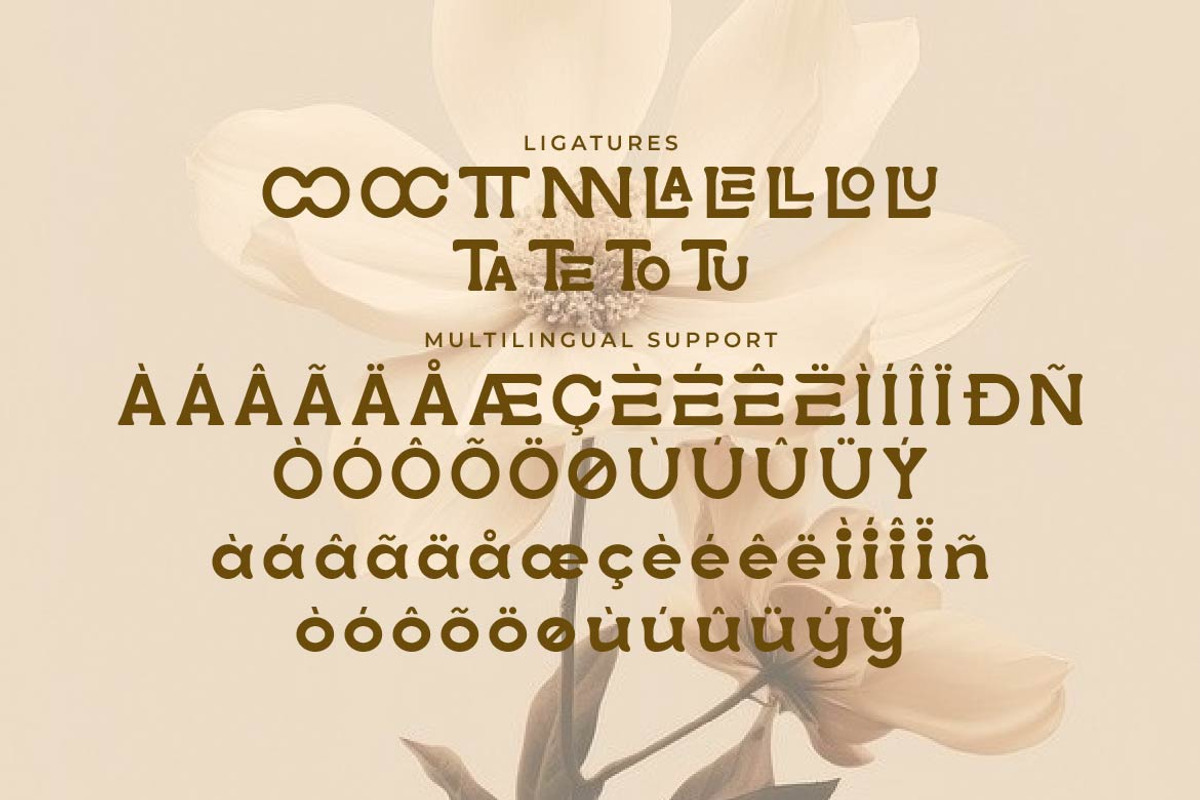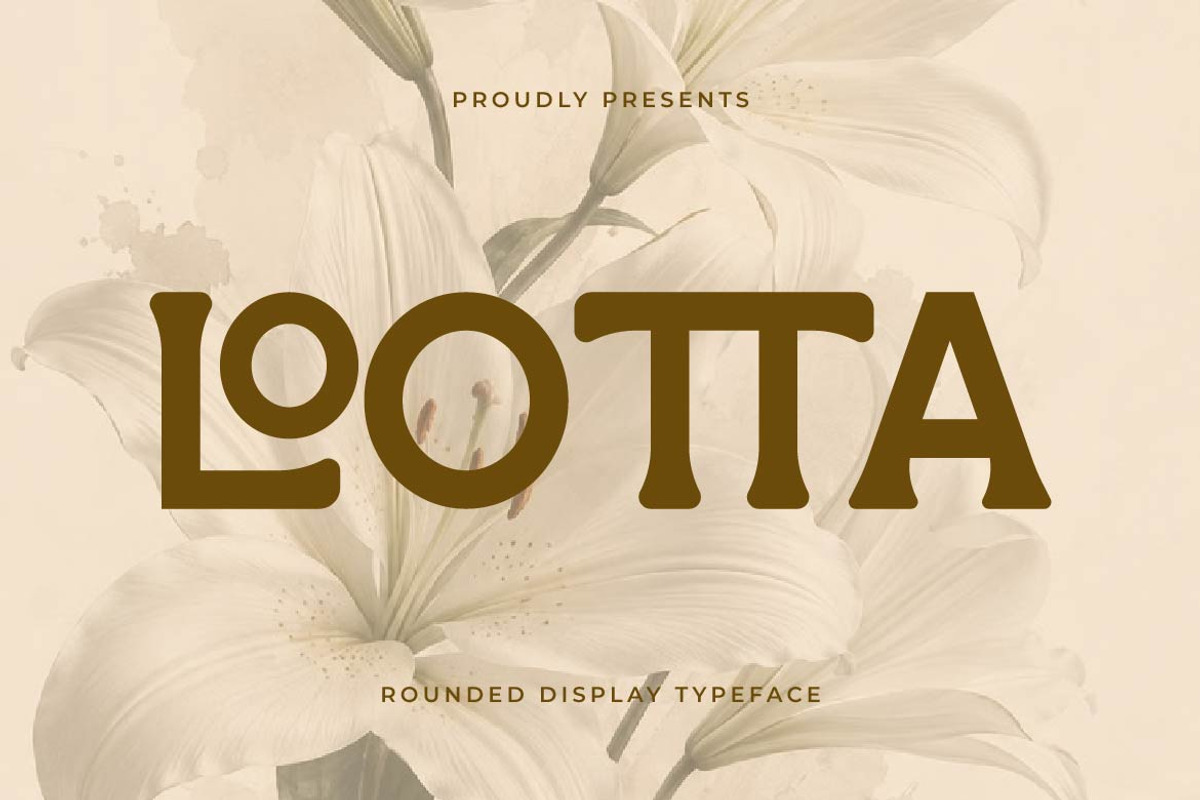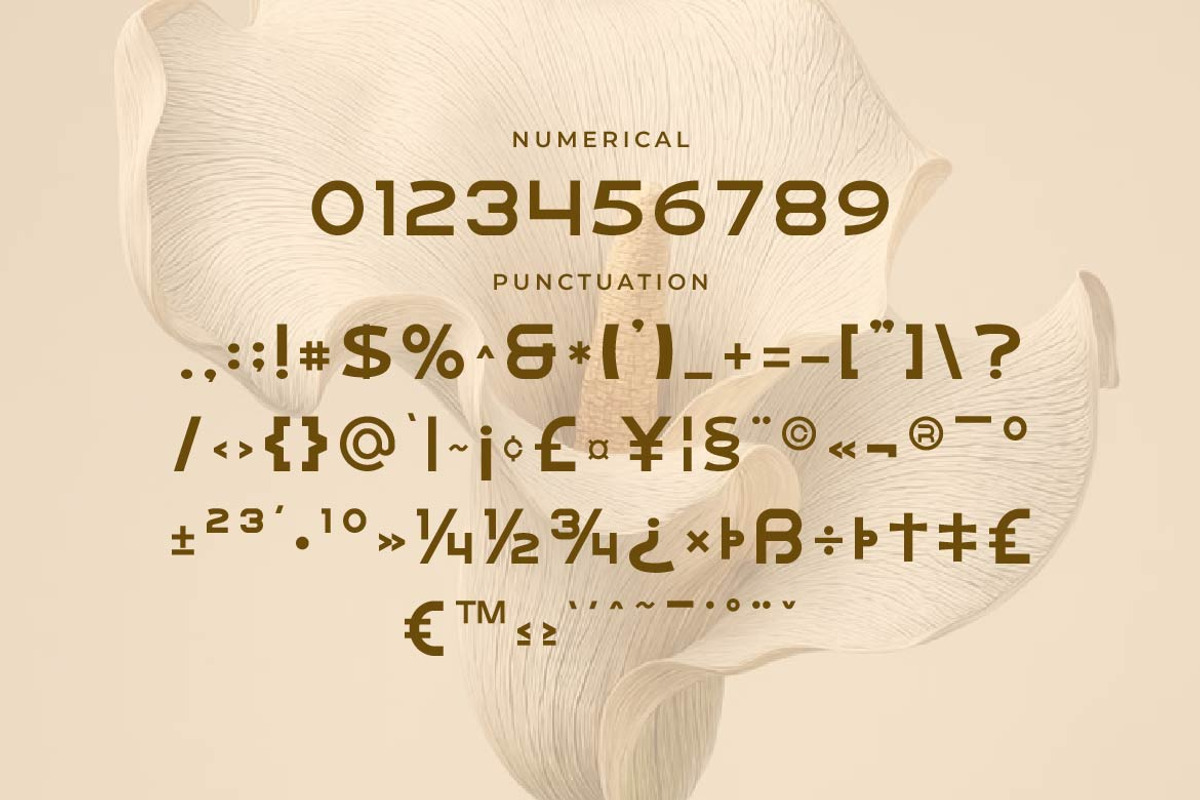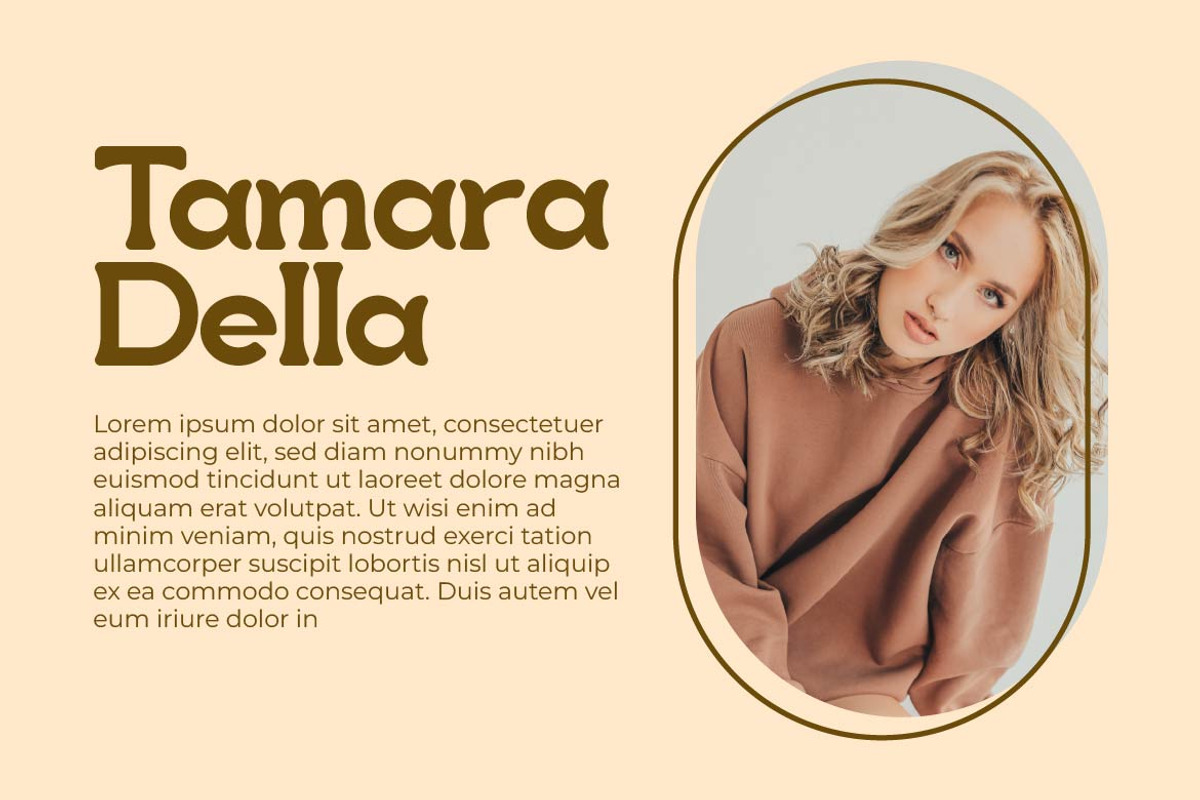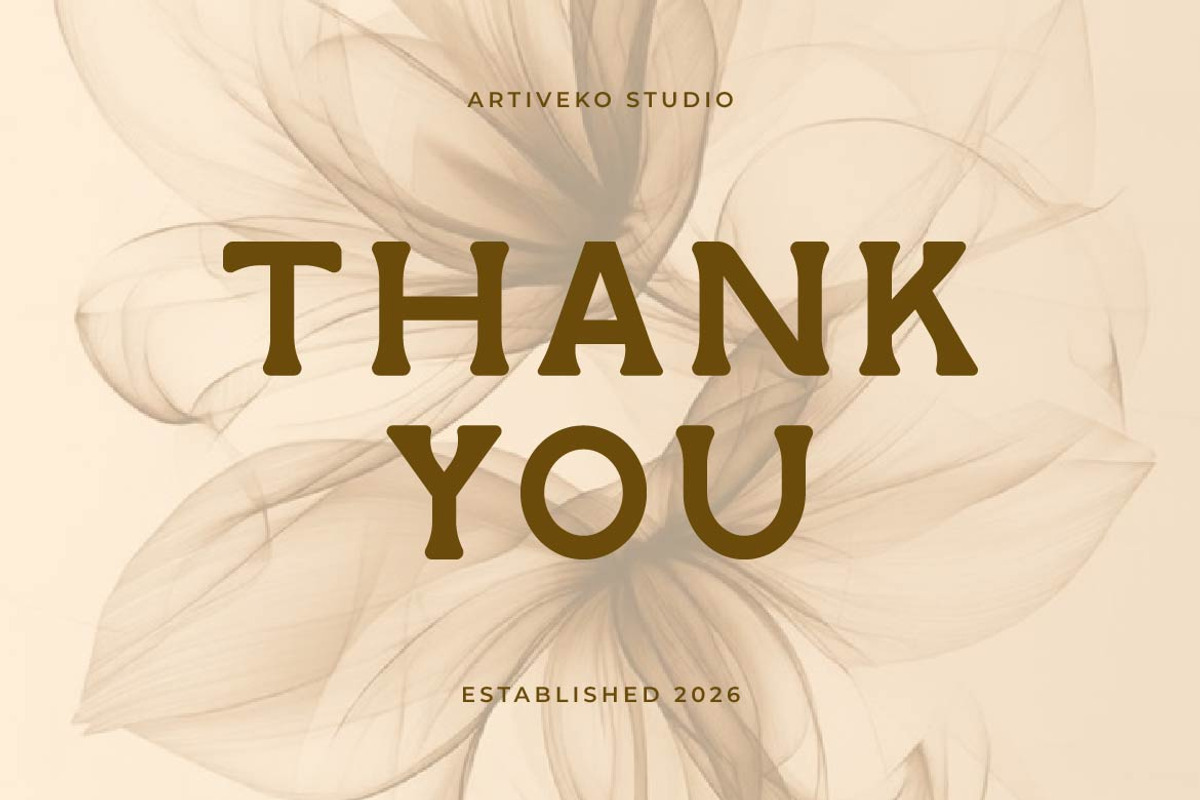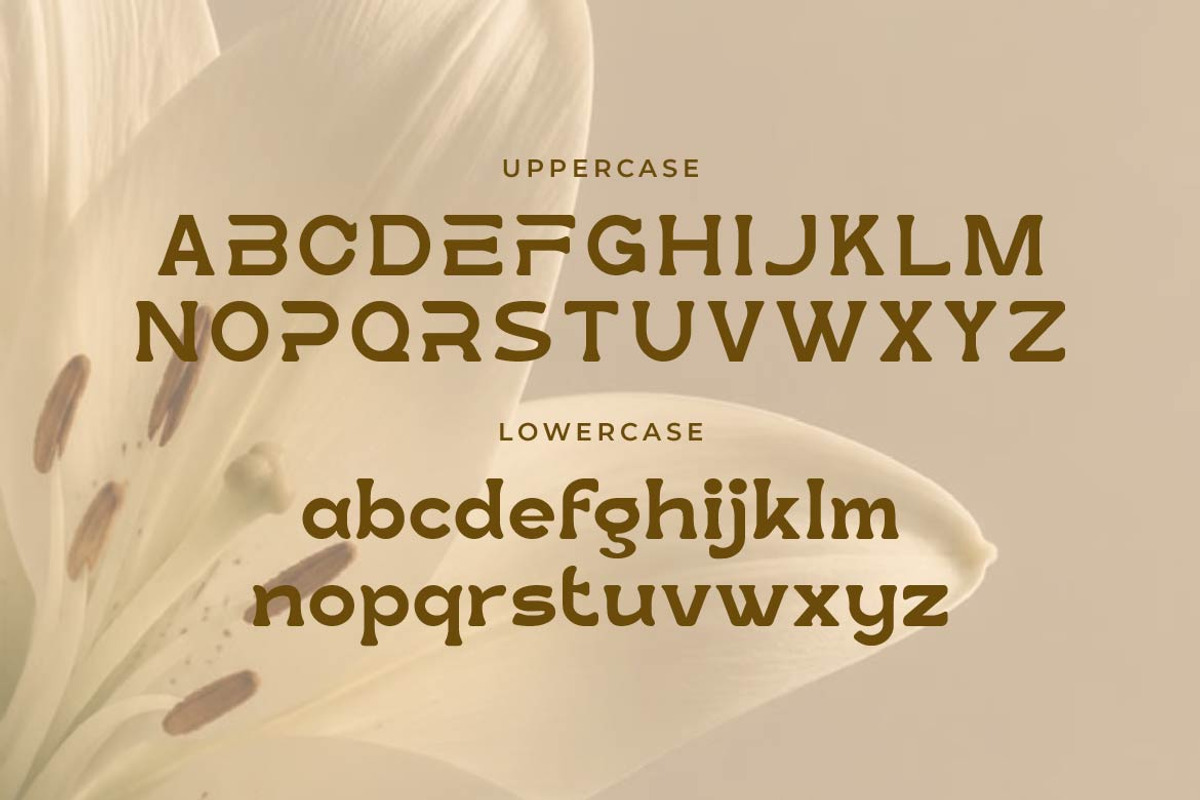
Lootta – Bold Rounded Display Font
Lootta is a bold, rounded display font with a confident, modern personality. Its thick strokes and smooth curves give every word a friendly yet impactful presence, making it a versatile choice for headlines and short, punchy text that needs to stand out.
What sets Lootta apart is its set of built-in ligatures. Certain letter pairs — like LO, TT, and OO — automatically merge into unique, custom-drawn shapes when typed in uppercase, adding a distinctive decorative detail without any manual adjustment. This turns ordinary letter combinations into small design moments, giving each word its own character.
Lootta works beautifully for logos, wordmarks, app branding, packaging, apparel graphics, posters, and social media content that calls for a bold, contemporary voice. Its rounded structure keeps the typeface approachable, while the ligatures add a level of craft and detail that elevates it beyond a typical display font.
Bold, playful, and full of unexpected detail — Lootta brings personality to modern typography, letter by letter.
Lootta — a bold rounded display font with custom ligatures for a distinctive finish.